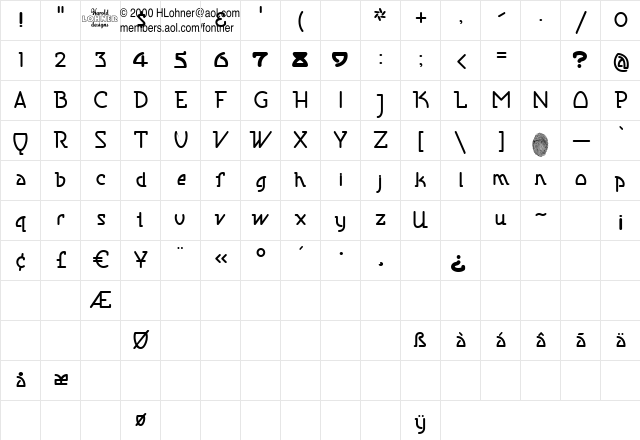
Sanitary Regular Trial Version
Copyright: Sanitary Regular Trial Version computer font ©2000 Harold Lohner "  " http://members.aol.com/fontner Based on an old product label for "Pepsodent Antiseptic." If you like this, pay the $5 fee and get the set
Design Context for Sanitary Regular
Sanitary Regular is a composed and adaptable typeface that performs quietly and consistently across a wide range of design contexts.